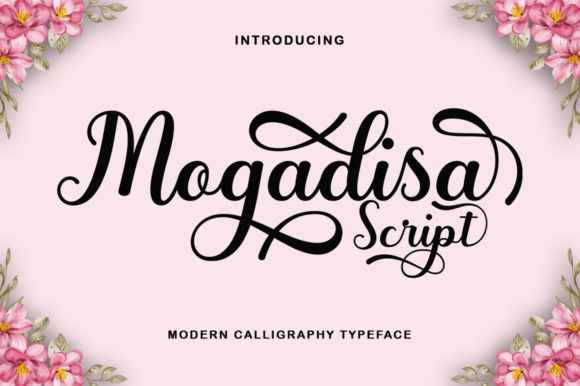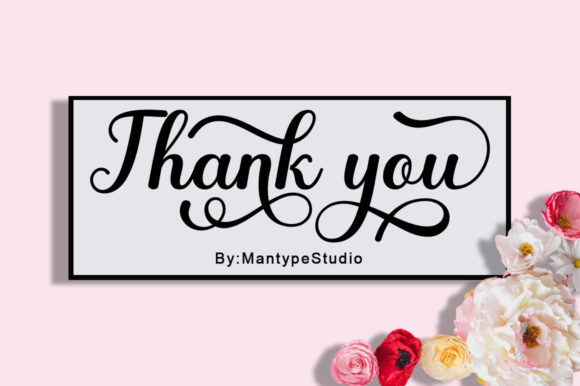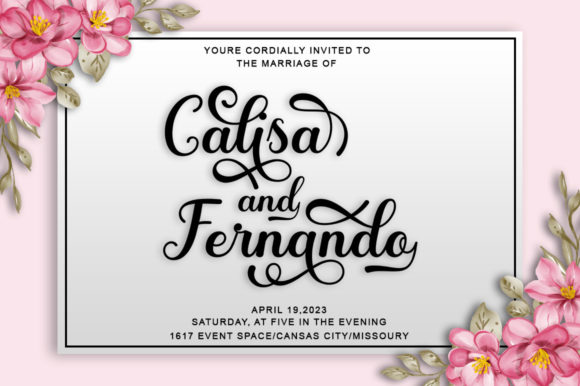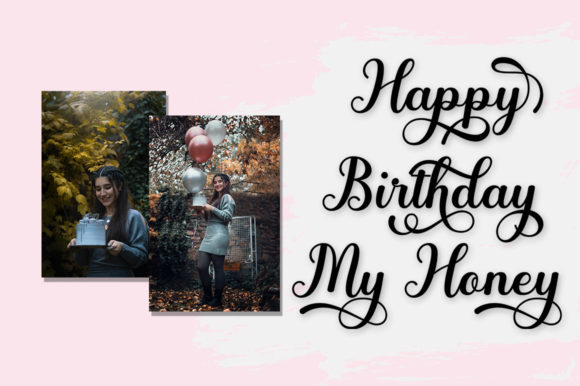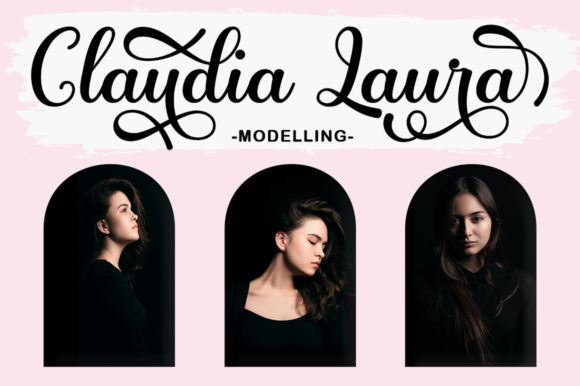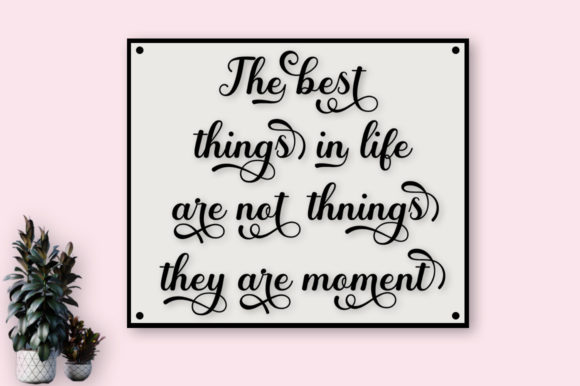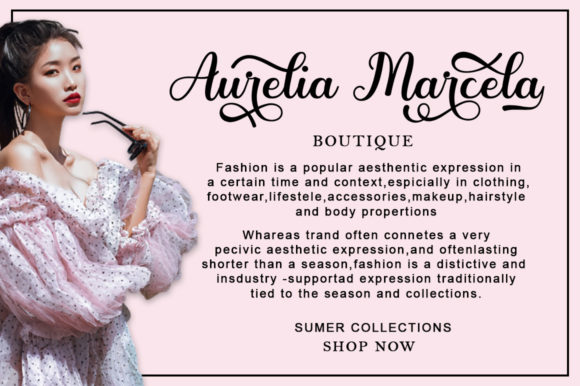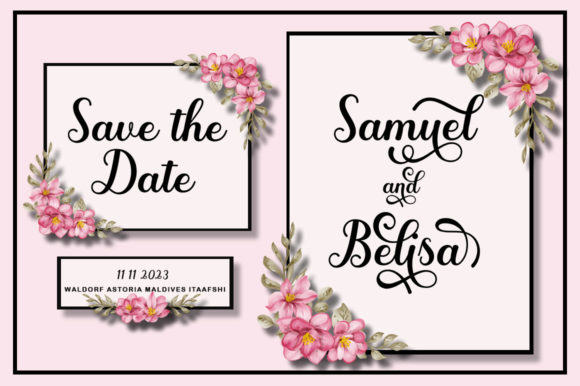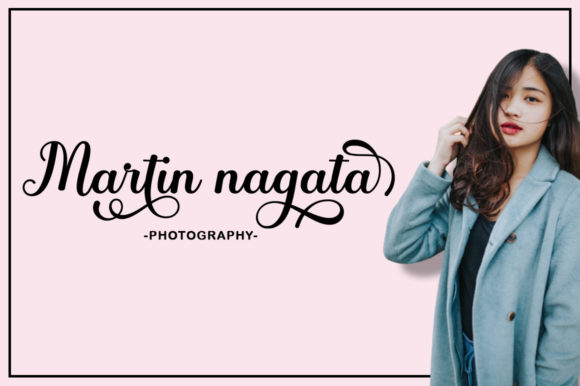
Mogadisa Script Font
About Mogadisa Script Font
“Mogadisa Script” is an exquisite and captivating script font that exudes elegance and attention to detail. Its meticulously crafted letterforms make it a standout choice for a wide variety of design projects. Whether you’re working on branding, marketing materials, or creative artworks, “Mogadisa Script” brings a touch of sophistication and charm to the table.
The font’s dazzling and intricate design is particularly well-suited for projects that demand a high level of visual appeal. Its flowing and ornate letterforms make it an excellent choice for luxurious and upscale branding. Whether used in logos, business cards, or packaging, “Mogadisa Script” can elevate a brand’s image and create a lasting impression of refinement.
For marketing materials, the font’s detailed strokes can capture attention and make headlines or promotional text stand out. Whether it’s banners, posters, or flyers, “Mogadisa Script” adds a touch of glamour that draws the viewer’s eye.
In the realm of creative artworks, the font can be used to design eye-catching typographic illustrations, quote graphics, or digital art pieces. Its swashes, alternates, and ligatures give you a wide range of options to experiment with, allowing you to create unique and visually engaging compositions.
Wedding invitations and stationery benefit from the font’s elegant script. It can evoke a sense of romance and sophistication, setting the tone for a special event. The font’s detailed flourishes add a touch of personality to the design, making it perfect for couples who want their invitations to reflect their unique style.
The fact that “Mogadisa Script” is PUA encoded means that accessing its glyphs, swashes, and alternates is easy and convenient. This makes the font a user-friendly choice for designers looking to customize their creations without hassle.
Whether you’re designing for print or digital media, “Mogadisa Script” can help you create visually stunning and impactful designs. Its dazzling and well-crafted design, combined with its versatility and potential for customization, makes it an exceptional asset for any designer’s toolkit.